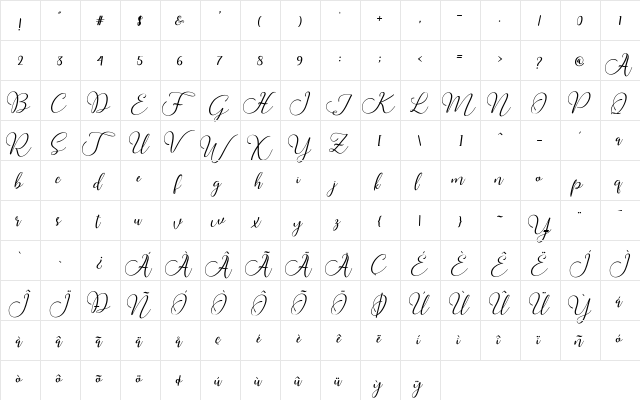
Buttercup Script Regular
Design Context for Buttercup Script Typeface
Buttercup Script flows with the natural rhythm of handwritten lettering, making it ideal for designs that call for warmth and personal expression.
Font Pairing: Combine Buttercup Script with a simple geometric sans for maximum contrast — the tension between flowing curves and clean structure is a classic typographic pairing.
Pro Tip: Use Buttercup Script for short runs of text — names, titles, or taglines. Extended body copy in script faces tires the eye quickly.